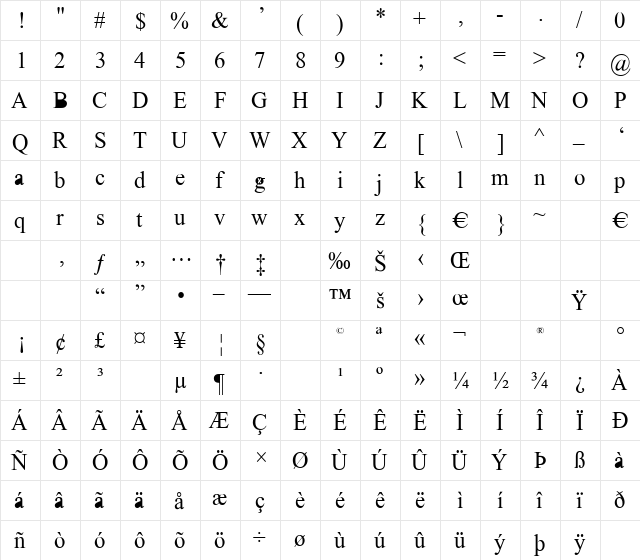
Timdan E Demo Regular
Design Context for Timdan E Demo Typeface
Timdan E Demo offers clean, dependable letterforms without strong stylistic allegiance, making it a practical choice for designers who need flexibility.
Pro Tip: Use Timdan E Demo in both headline and body roles to test its range before committing to a single application.